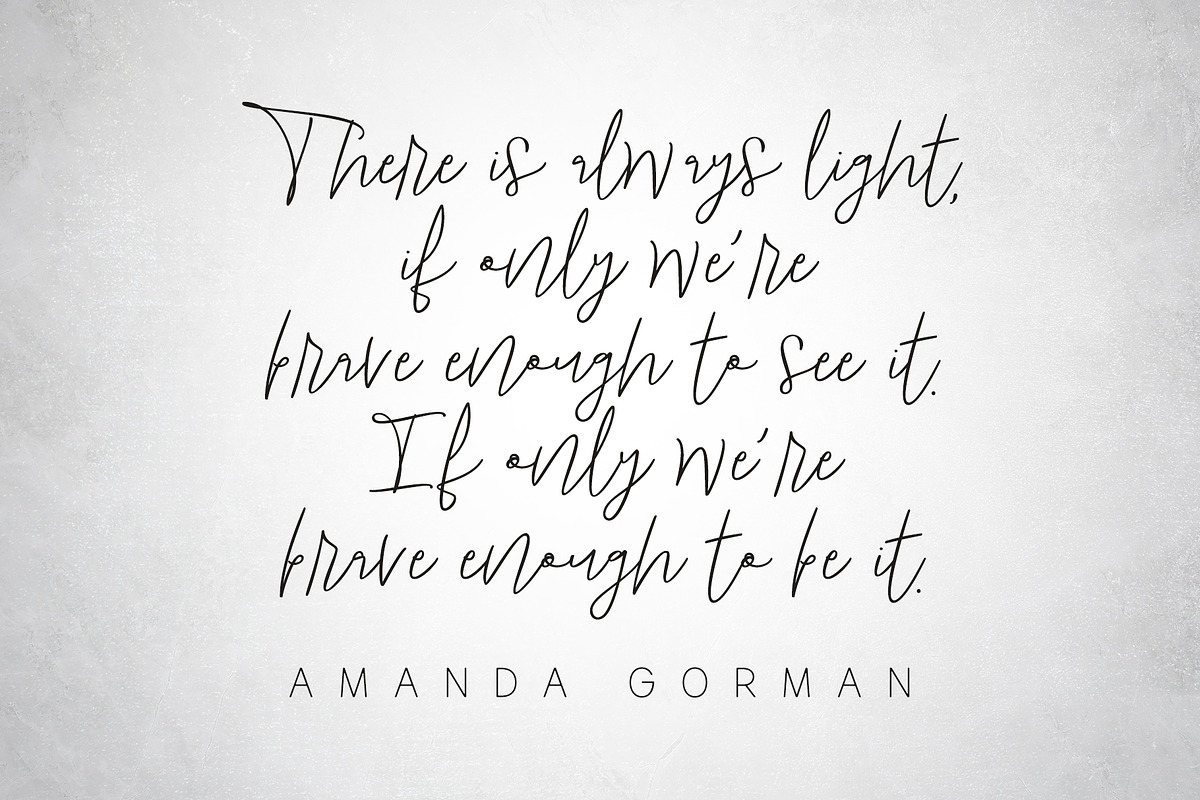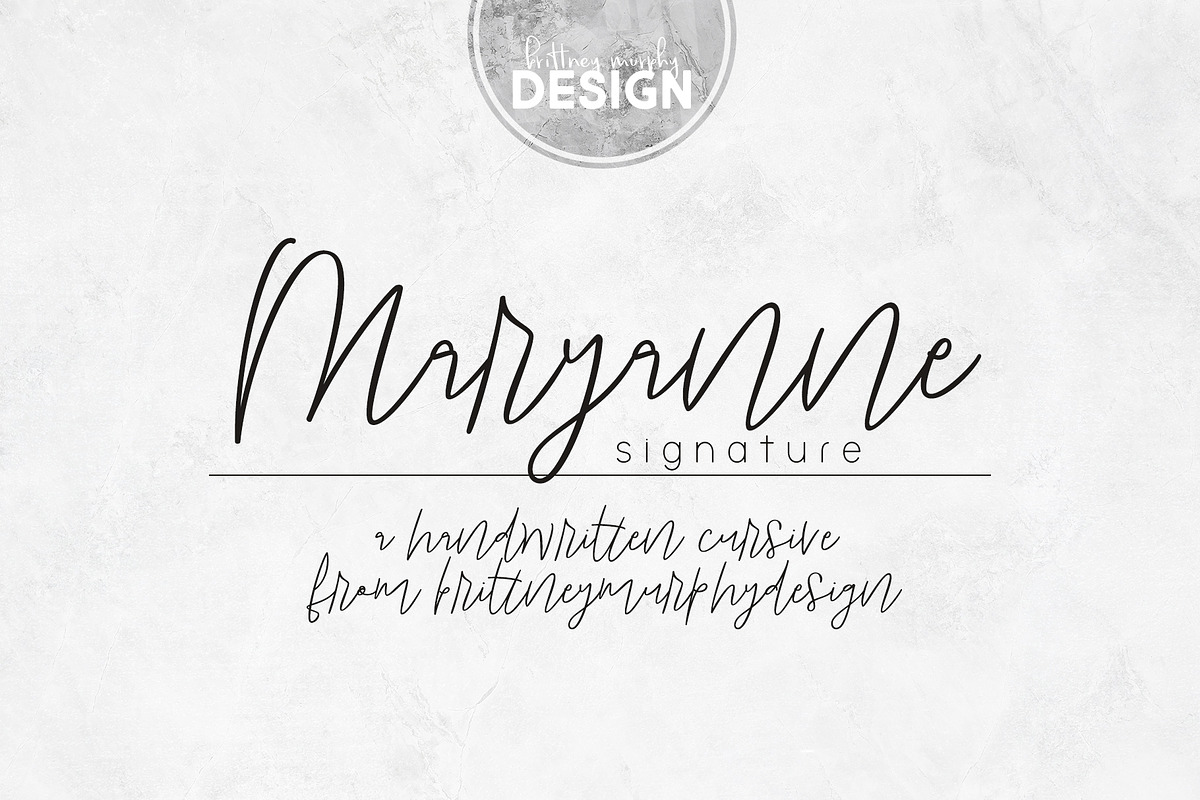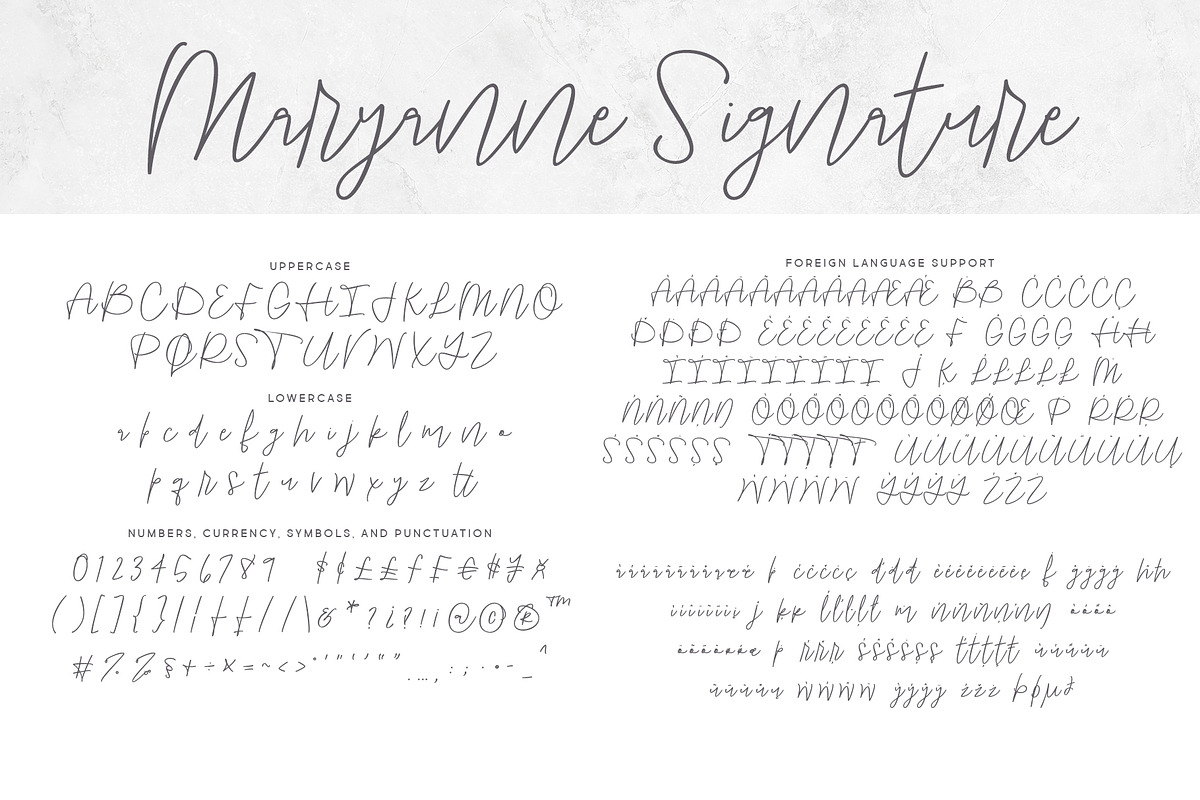
Maryanne Signature
Designed to feel like a natural handwritten cursive with a pen, Maryanne Signature will give your project a casual and natural feeling while still remaining legible. Great for headlines as well as bylines, Maryanne Signature pairs and contrasts well with other clean fonts to balance out personality with professionalism.